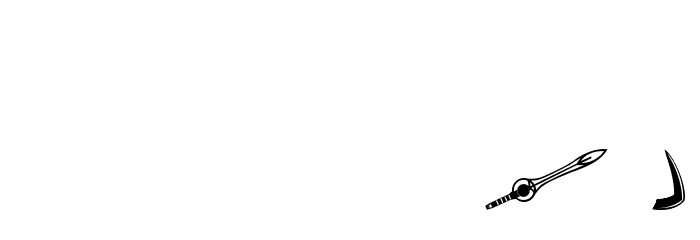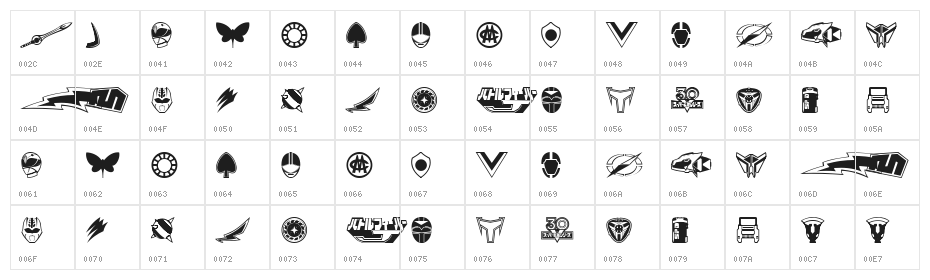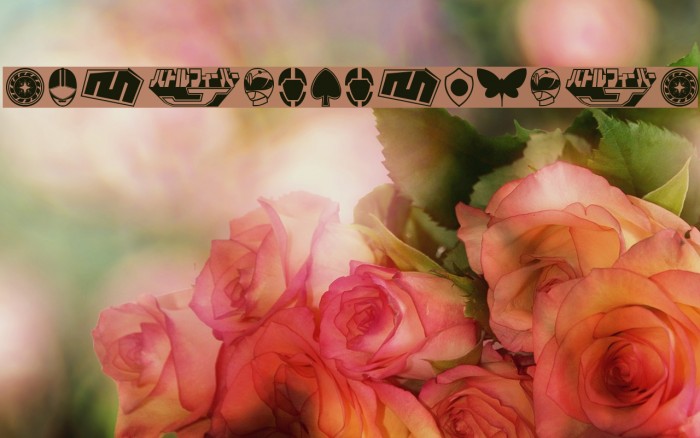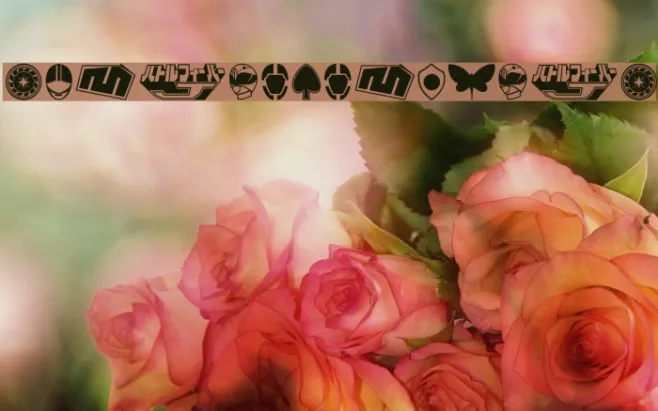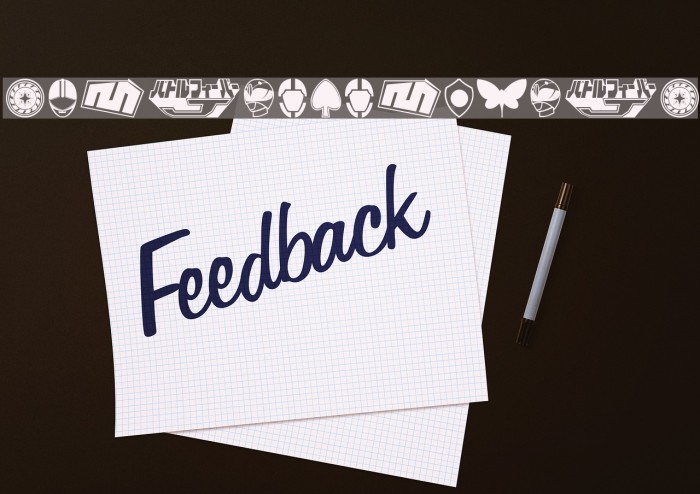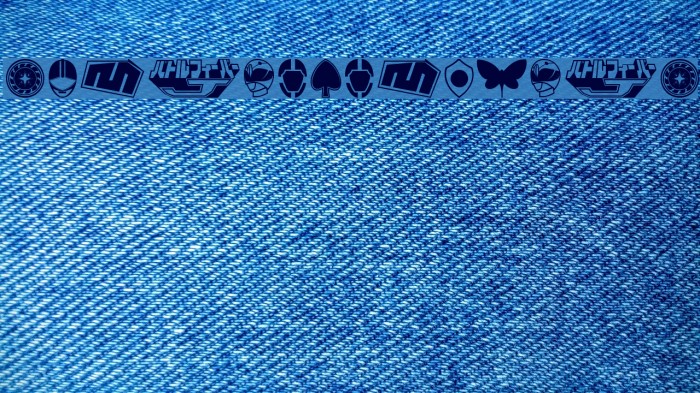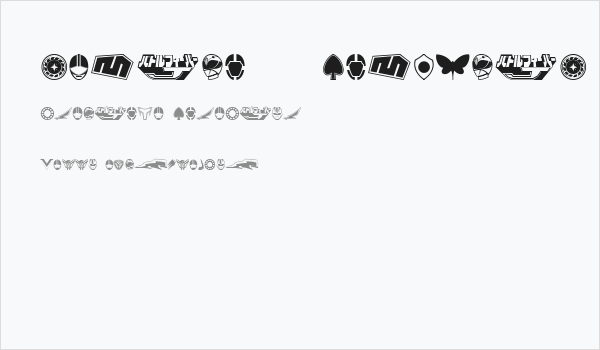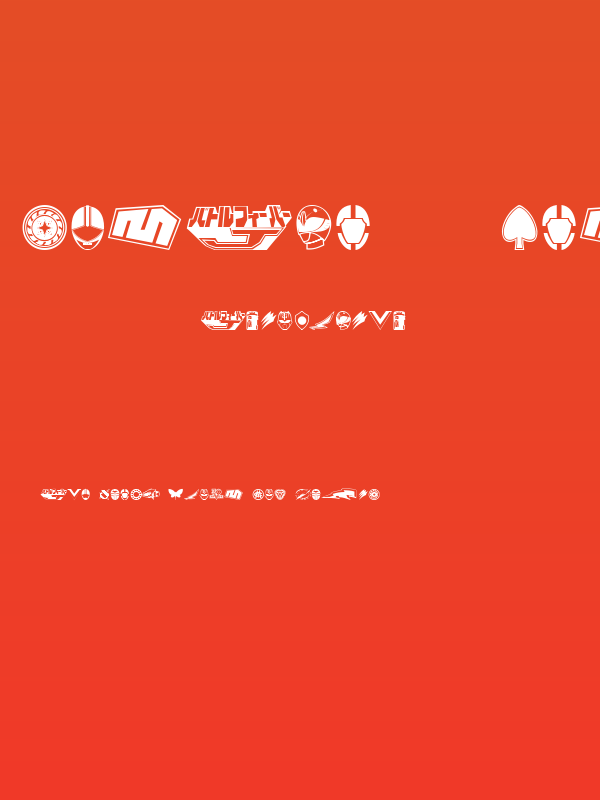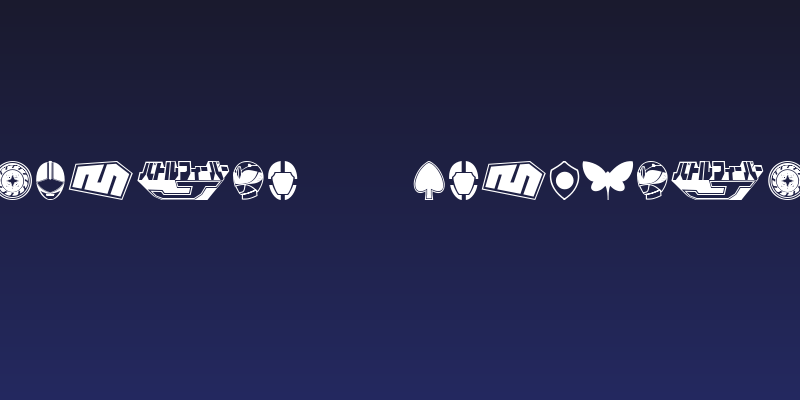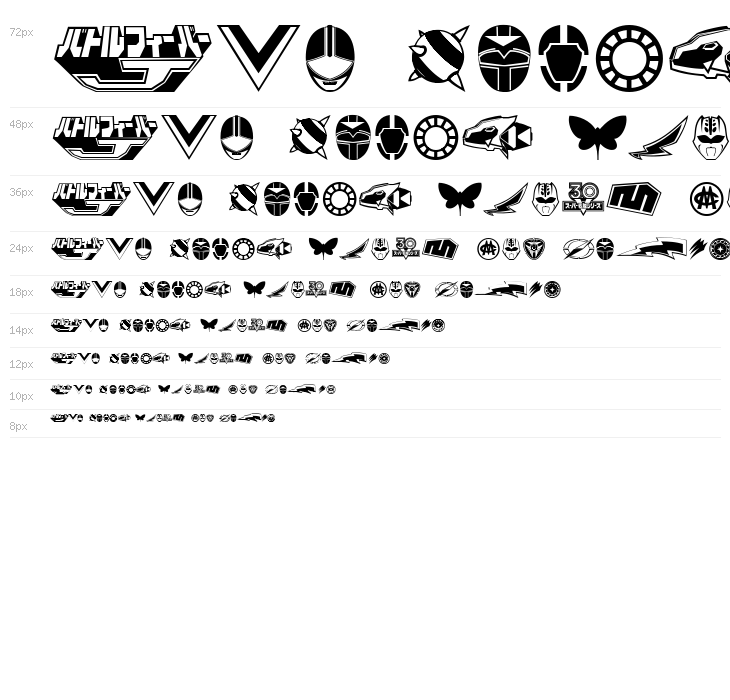
Sentai 30 Dingbats Font
Sentai 30 Dingbats Description
This collection features a series of dingbats inspired by iconic symbols and motifs from a popular Japanese superhero genre. The designs include various helmets, emblems, and abstract shapes that are reminiscent of the vibrant and dynamic elements found in action-packed series. Each symbol is crafted with bold lines and high contrast, making them stand out distinctly. The set is perfect for adding a touch of adventure and excitement to creative projects, capturing the essence of heroism and teamwork.
| Use Case | Logos, Posters, Merchandise |
| Proposed Projects | Ideal for creating themed posters, merchandise designs, fan art, and digital graphics that require a touch of superhero flair. |